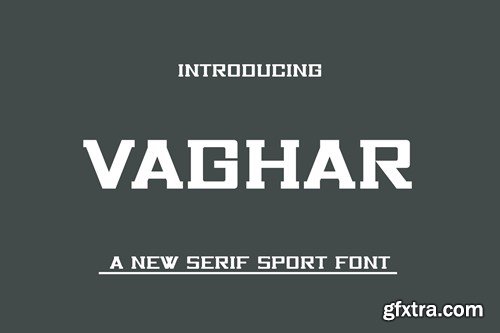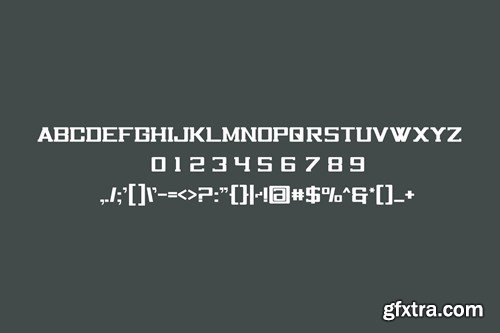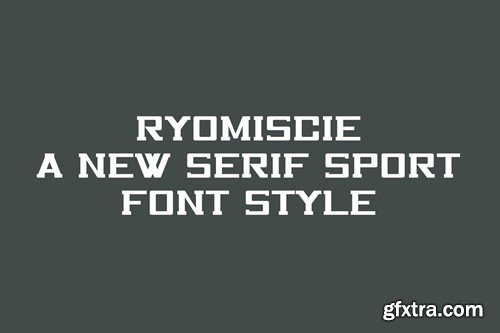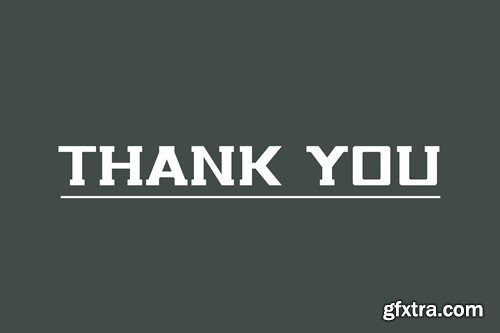
瓦格哈特字体 TT599AN
Vaghar Font TT599AN
Vaghar Font
Introducing our new product Vaghar Font
• Very suitable for flyer, posters, novel, letterhead, or any design requirements that you want to be awesome. ____________________________________________________________________________________________